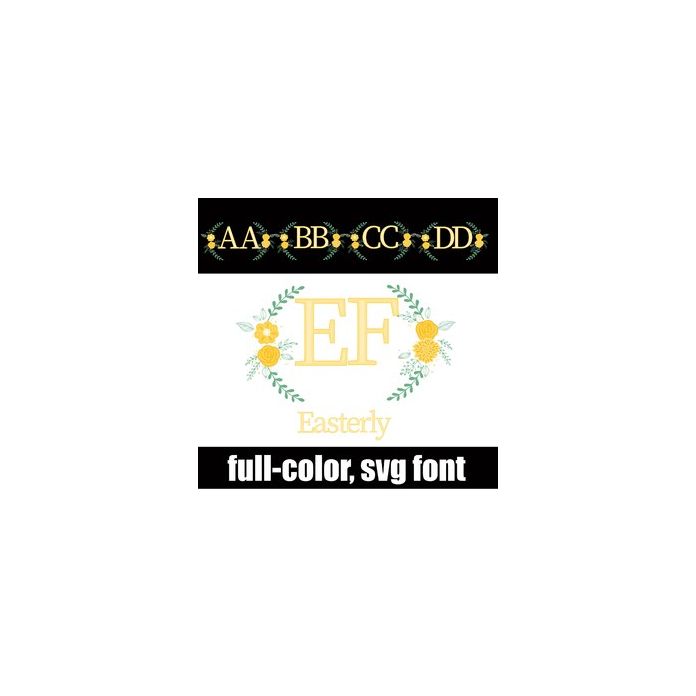
This monogram font features yellow, floral laurels to the side of each letter. To type your monogram type an uppercase, followed by a lowercase. Alt upper and lowercases are available through your system's character map. This font works best for titles, displays, posters and more. Please note color fonts will show as black in non compatible programs. This font type is compatible with Silhouette Studio.